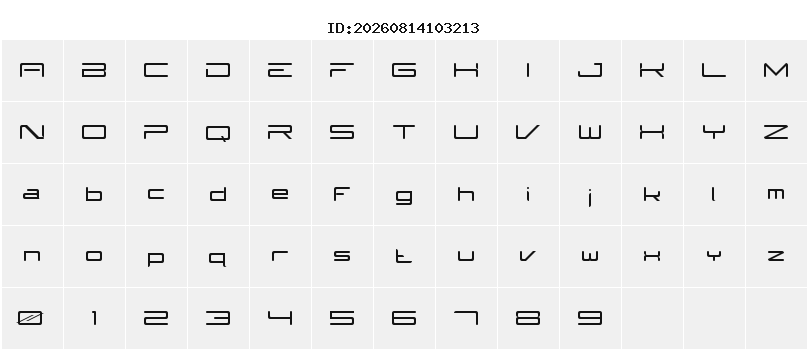
SubZER0 Preview
• Font Name: SubZER0
• Font ID: FontStruct SubZER0
• Full Font Name: SubZER0 Regular
• PostScript Name: SubZER0
• Character Count: 84
• Designer: Avendrakon
• Description: ‚ÄúSubZER0‚Äù was built with FontStruct
About SubZER0.ttf
SubZER0.ttf is a modern, elegant sans-serif font designed for ultimate readability and visual harmony. Perfect for branding, headlines, web design, and print materials.